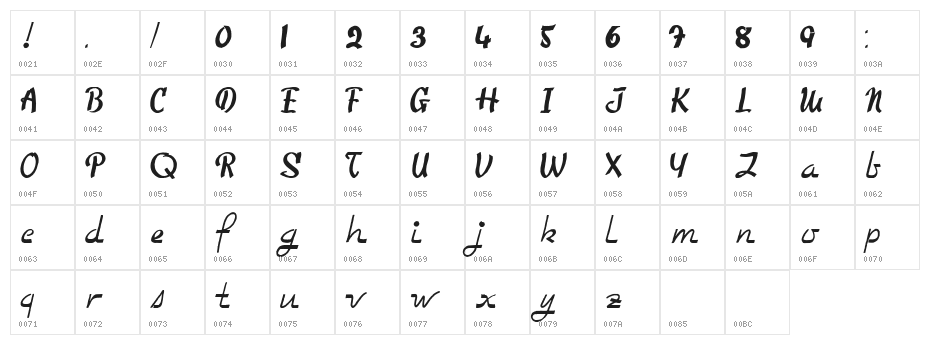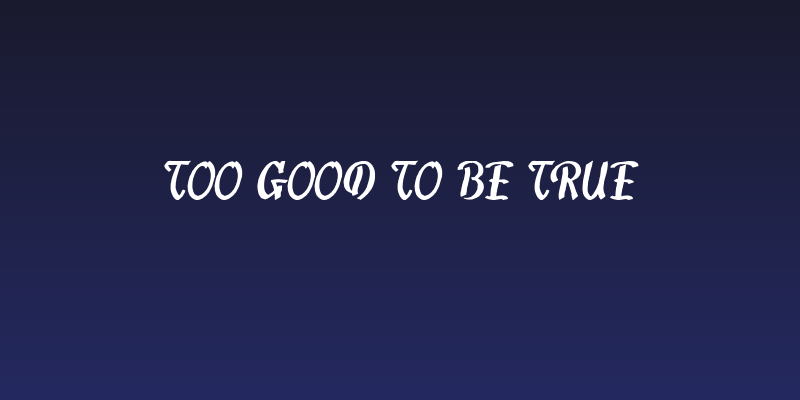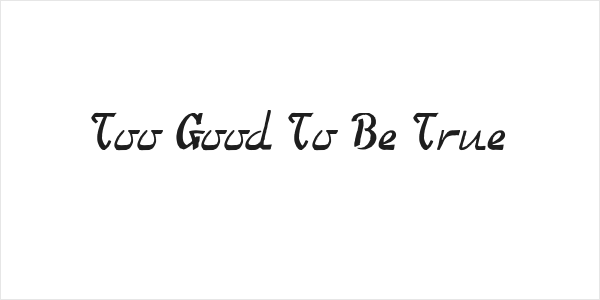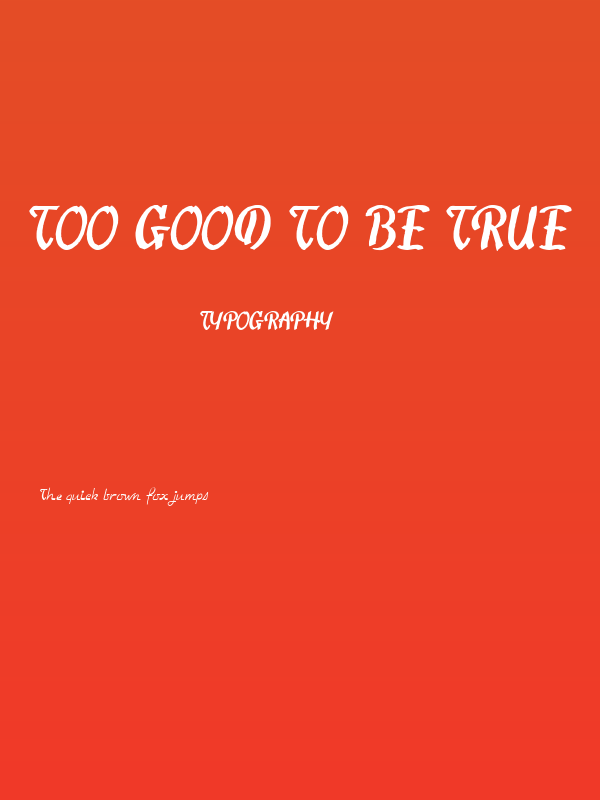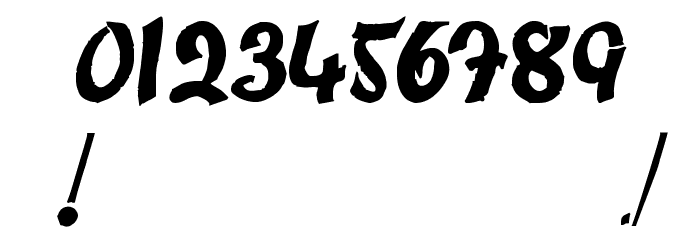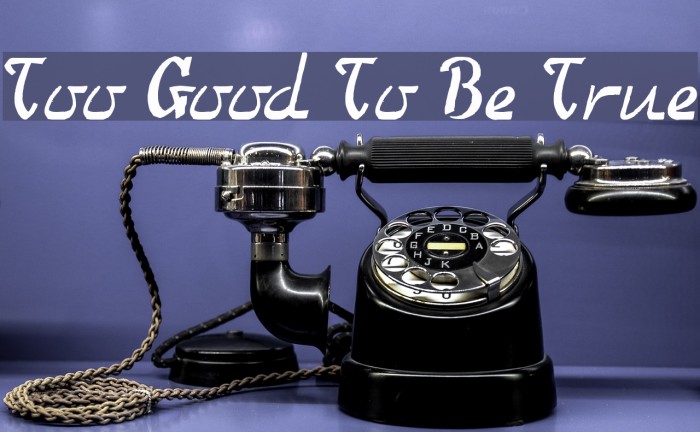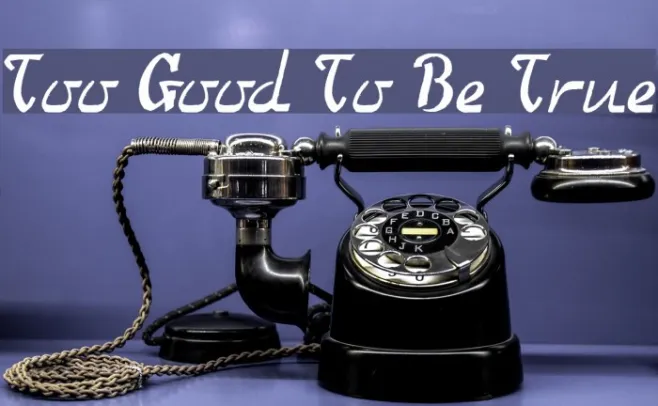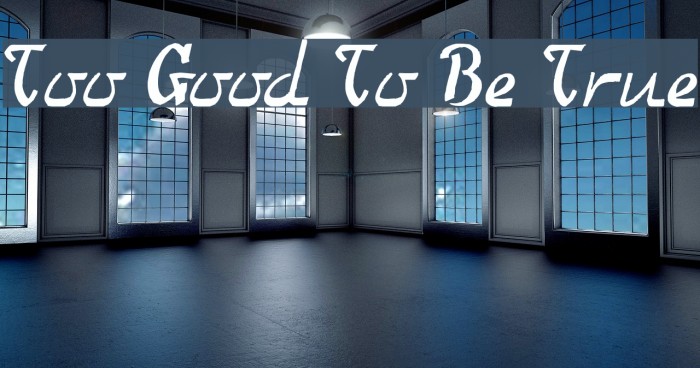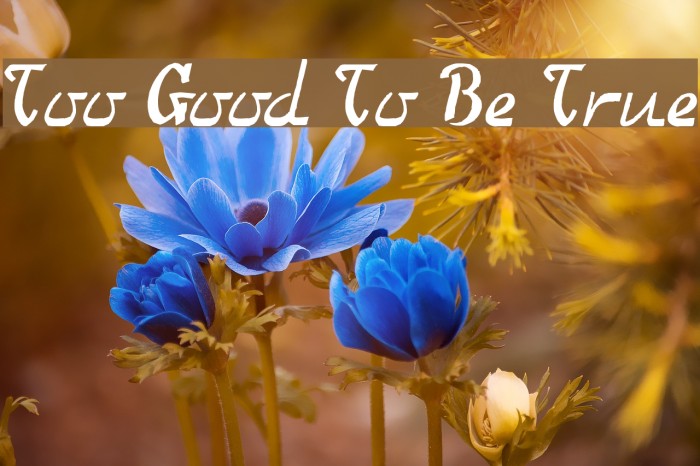
Too Good To Be True Font
Too Good To Be True Description
This font features a dynamic and expressive style, characterized by its bold and flowing script. The uppercase letters exhibit a strong presence with their thick strokes and slight slant, giving a sense of movement and energy. The lowercase letters maintain a consistent flow, with some characters featuring distinctive loops and curves that add to the font's lively appearance. Numbers are bold and slightly condensed, matching the overall aesthetic. Special characters like the exclamation mark and question mark are designed with the same boldness and flair, ensuring consistency throughout the font. This font's unique style makes it suitable for projects that require a touch of personality and creativity.